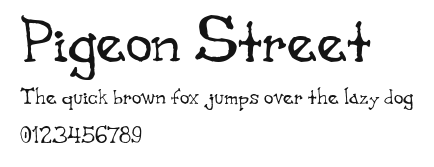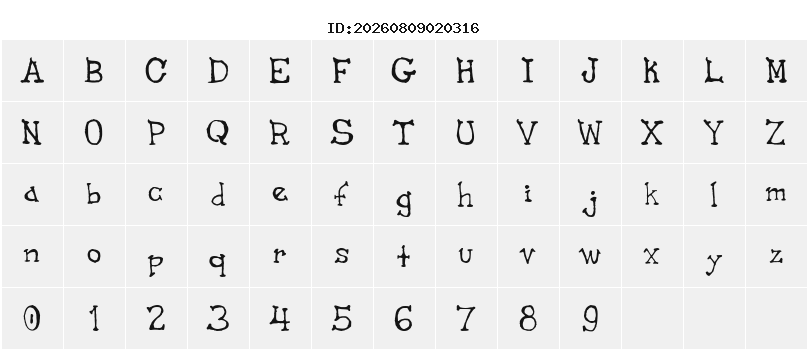
• Font Name: Pigeon Street
• Designer: S. John Ross
• Description: Created from freehand samples drawn while watching pigeons behind the student union at the UT Campus, 3-6-2001